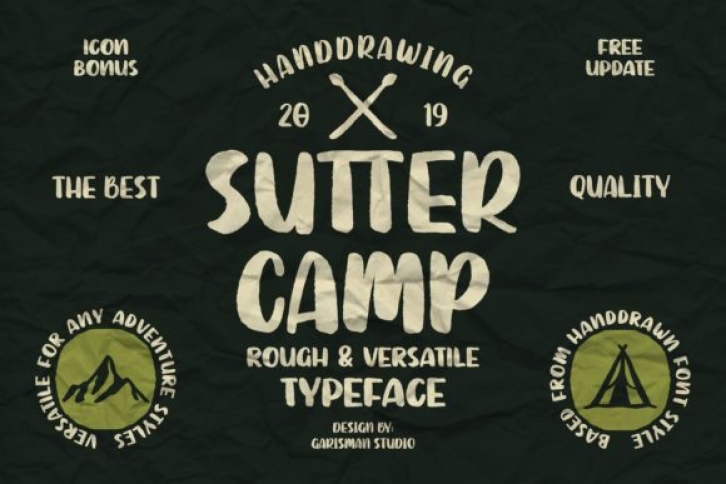
Starting from a light streak with a special brush, in an atmosphere of adventure and the natural world was born. With a touch of a rough brush and thick lines, the Sutter Camp is here to meet font users. Especially you who like adventure styles. It comes with a rough line, adventure icons (in vector form), and also with a bonus editable logo.
It can be used for branding, logos, packaging, quotes, hand-lettering, t-shirt designs, banners, posters and many other great jobs. Make it interesting using Sutter Camp!